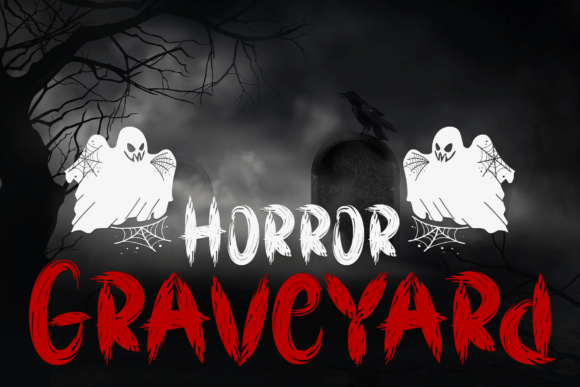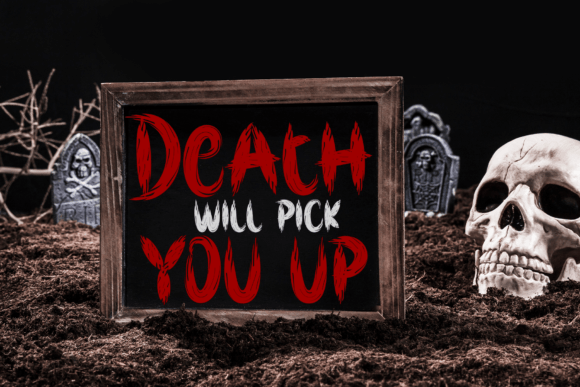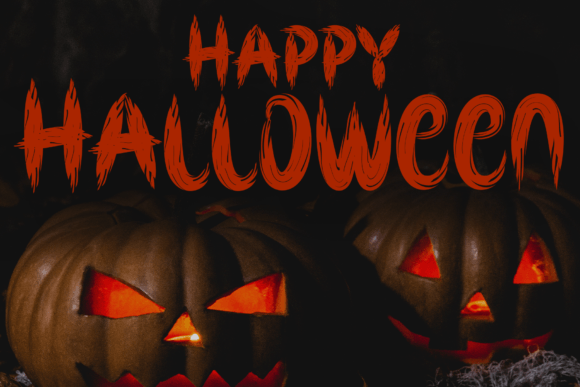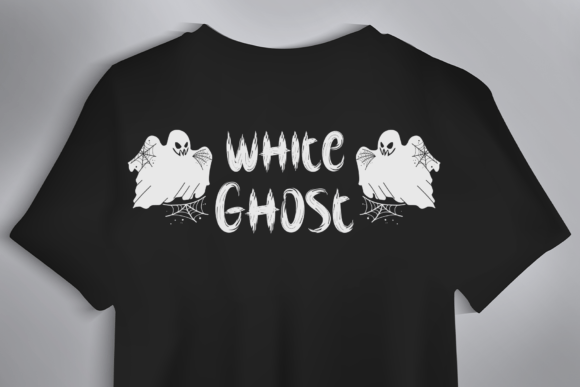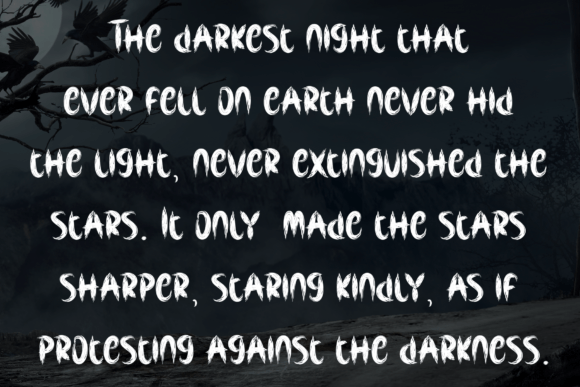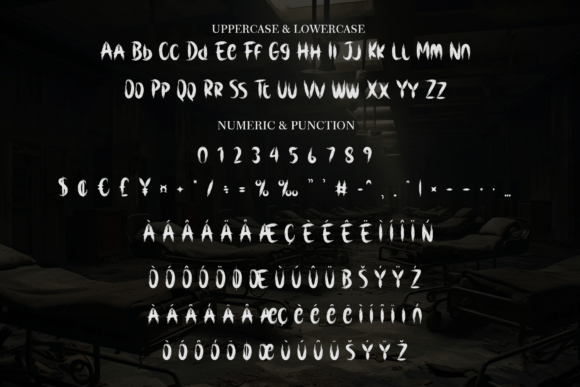
Introducing Former Mortuary Font: Adding a Touch of Whimsy to Your Designs
Are you tired of using the same old fonts in your designs? Look no further than the Former Mortuary Font, a bold and playful display font that’s sure to add a fun touch to any project. In this article, we’ll take a closer look at this unique font and explore its many uses for designers and crafters.
What is Former Mortuary Font?
Former Mortuary Font is a bold display font that’s perfect for making a statement. With its cute and fun design, this font is ideal for writing posters, cards, or any other design that might need a playful touch. Whether you’re working on a DIY project, creating social media graphics, or designing marketing materials, Former Mortuary Font is sure to grab attention.
Key Features of Former Mortuary Font
- Bold and Playful Design: Former Mortuary Font features a bold and playful design that’s sure to stand out in any design.
- Easy to Read: Despite its bold design, this font is easy to read, making it perfect for use in a variety of designs.
- Versatile: Former Mortuary Font can be used in a wide range of designs, from posters and cards to social media graphics and marketing materials.
- Cute and Fun: This font’s cute and fun design makes it perfect for adding a playful touch to any design.
Uses for Former Mortuary Font
Former Mortuary Font is a versatile font that can be used in a wide range of designs. Here are just a few ideas to get you started:
- Posters: Use Former Mortuary Font to create eye-catching posters for events, promotions, or announcements.
- Cards: Add a playful touch to your greeting cards, invitations, or thank-you cards with this fun font.
- Social Media Graphics: Use Former Mortuary Font to create engaging social media graphics that are sure to grab attention.
- Marketing Materials: This font is perfect for use in marketing materials, such as brochures, flyers, or business cards.
- DIY Projects: Add a personal touch to your DIY projects, such as scrapbooking, crafting, or woodworking, with Former Mortuary Font.
Tips for Using Former Mortuary Font
Here are a few tips for using Former Mortuary Font in your designs:
- Use it sparingly: While Former Mortuary Font is a fun and playful font, it can be overwhelming if used too much. Use it sparingly to add emphasis to key words or phrases.
- Pair it with other fonts: Combine Former Mortuary Font with other fonts to create visual interest and add depth to your design.
- Experiment with colors: Try out different colors to see what works best with Former Mortuary Font. Bright and bold colors can add to the font’s playful vibe.
Former Mortuary Font is a bold and playful display font that’s perfect for adding a fun touch to any design. With its cute and fun design, versatility, and ease of use, this font is ideal for designers and crafters looking to create eye-catching designs. Whether you’re working on a poster, card, social media graphic, or marketing material, Former Mortuary Font is sure to grab attention and add a playful touch to your design.